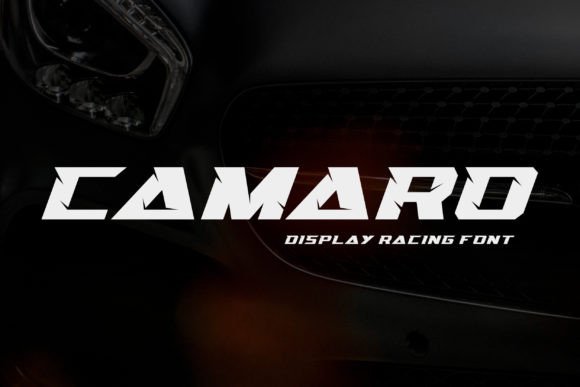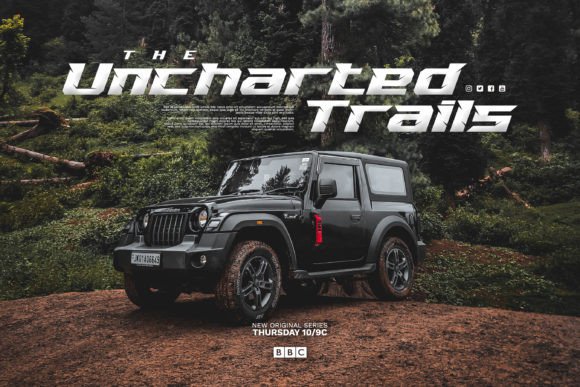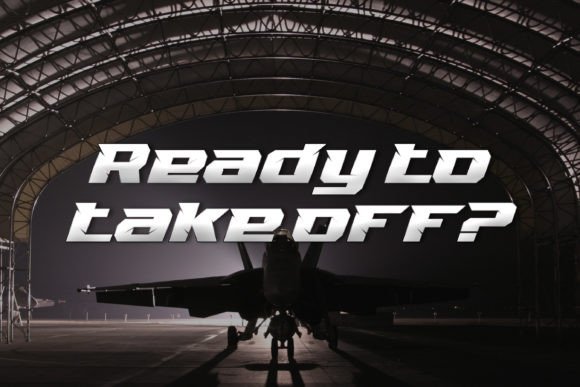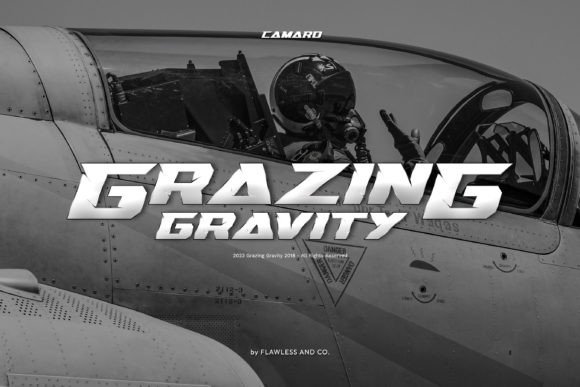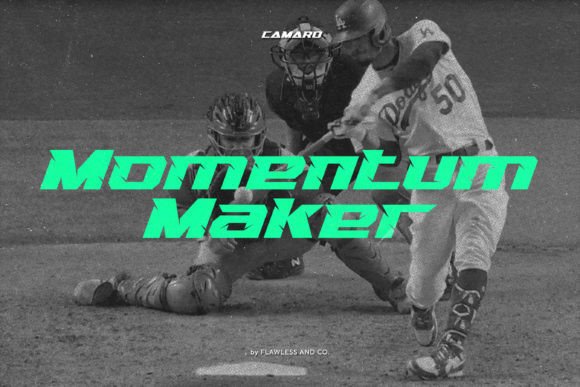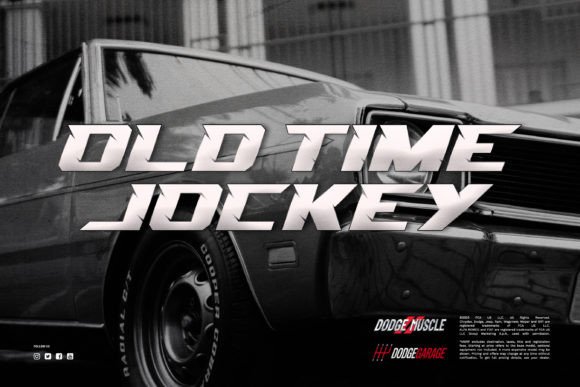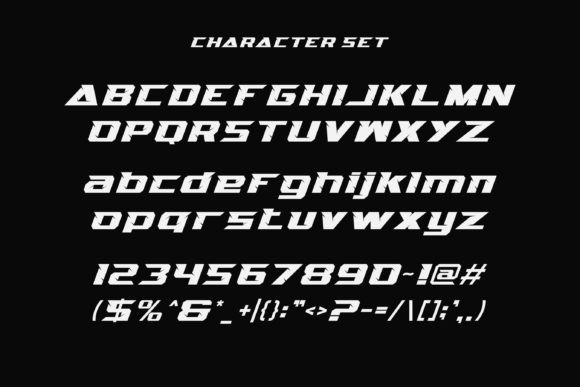
Camaro Font
Introducing “Camaro” – a dynamic and high-octane racing display font that embodies speed, excitement, and adrenaline. Camaro showcases a strong and sleek design that mimics the aerodynamic lines of racing cars. Its bold strokes and sharp edges evoke a sense of speed and movement, making it perfect for race car logos, racing event posters, sports branding, and any design that requires a racing-inspired typographic element.